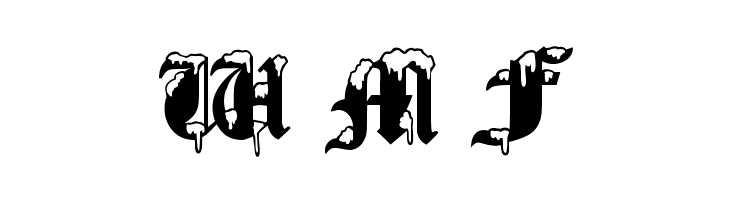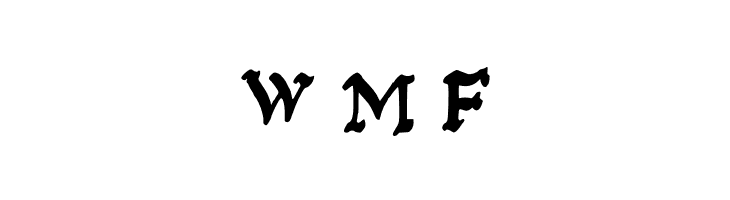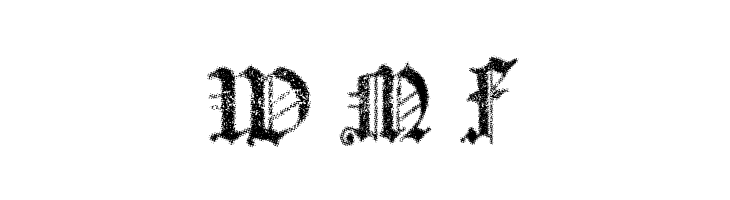
A bold, gothic-style font with blackletter influences and dramatic strokes.
A classic Gothic font with intricate, ornate letterforms and high contrast strokes.
A classic Gothic-style font with ornate, medieval-inspired letterforms.
A decorative Gothic-style font with intricate, bold designs and sharp serifs.
A bold, decorative serif font with Gothic influences and high contrast strokes.
A gothic-style font with ornate and dramatic flourishes.
A bold, decorative Gothic font with intricate detailing and historical elegance.
A bold, Gothic-inspired font with sharp, angular edges and intricate detailing.
A decorative Gothic-style font with intricate flourishes and bold strokes.
A Gothic font with snow-themed accents, perfect for winter designs.
A traditional Gothic font with intricate, angular letterforms and pronounced serifs.
A bold, gothic-style font with ornate flourishes and a dramatic presence.
A bold, sketch-like Gothic font with intricate, hand-drawn details.
A bold, ornate blackletter font with intricate, gothic-style letterforms.
A bold Gothic font with sharp, angular lines and a medieval flair.
A bold, ornate Gothic script with intricate details and historical elegance.
A classic blackletter font with ornate, gothic letterforms and high contrast.
A bold, italicized blackletter-style font with ornate, gothic elements.
A Gothic-style font with sharp, angular lines and intricate detailing.
A bold Gothic font with sharp, angular lines and intricate serifs.
A classic Gothic font with sharp serifs and medium contrast, ideal for decorative use.
A bold, Gothic-inspired font with sharp, angular lines and high contrast.
An ornate Gothic script with intricate flourishes and bold characters.